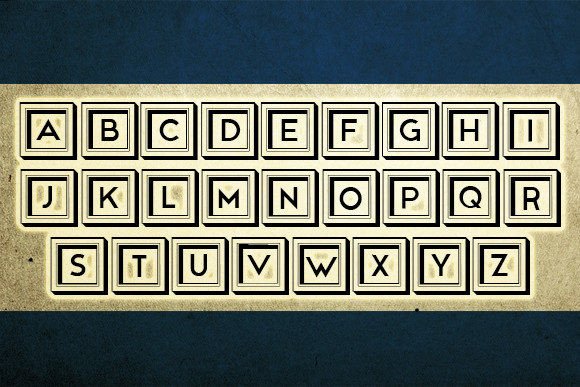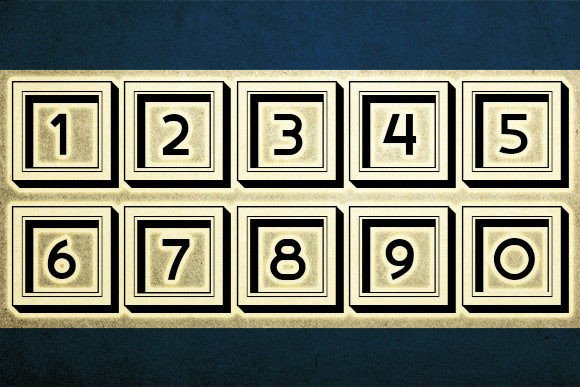
The Designer’s Delight: Why Dylan Font Should be Your Next Go-To
I still remember the frustration of working on a project, hours spent crafting the perfect design, only to realize that the font I chose just wasn’t cutting it. The client wanted something that would make their brand stand out, but I was stuck with a font that was, well, just bland. That’s when I stumbled upon the Dylan font, and let me tell you, it was a game-changer. In this article, I’ll share my love for this awesome Capitals font and how it can elevate your designs.
So, what makes Dylan font so special? Here are a few things that I just love:
- ✨ **Stunning visuals**: Dylan font has a unique, elegant feel that adds a touch of sophistication to any design.
- ✅ **Versatility**: Whether you’re working on a logo, a poster, or a social media graphic, Dylan font fits right in.
- 💡 **Easy to read**: Despite its elegant feel, Dylan font is surprisingly easy to read, even in smaller sizes.
Of course, no font is perfect, and Dylan has a few quirks:
- 🤔 **Limited use in body text**: While Dylan font is amazing for headings and titles, it’s not the best choice for longer body text.
- ⚠️ **Some characters may require manual kerning**: Depending on your design, you might need to adjust the kerning of certain characters to get the perfect look.
The Story Behind Dylan Font
Dylan font was designed with the goal of creating a clean, elegant, and highly legible font for creative professionals. Inspired by classic typography and modern design trends, Dylan font aims to bring a touch of sophistication to any design project.
| What makes Dylan font unique? | Dylan font boasts a distinctive, elegant feel with excellent legibility, making it perfect for titles, headings, and creative projects. |
| Is Dylan font suitable for body text? | While Dylan font is amazing for headings and titles, it’s not the best choice for longer body text due to its elegant, yet slightly condensed style. |